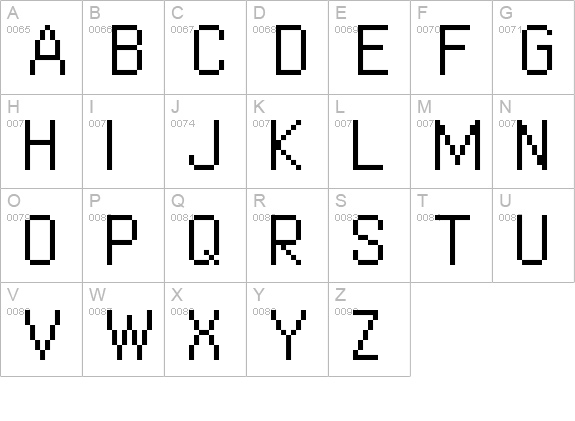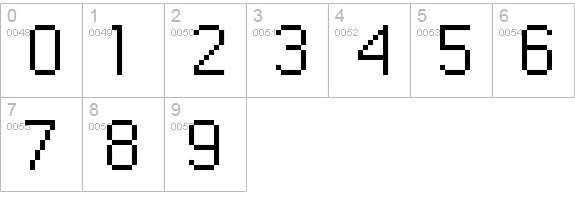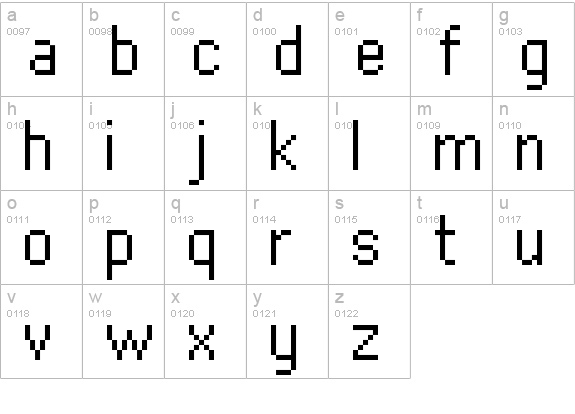
copy 10_56 Font Details
Discover the perfect blend of style and functionality with the elegant 10_56 font. This versatile typeface is ideal for a wide range of design projects, from branding to editorial design. With its clean lines and modern aesthetic, 10_56 font adds a touch of sophistication to any creative endeavor. Best of all, this premium font is available for free download at FontsMarket.com. Don't miss this opportunity to elevate your designs with the timeless elegance of the 10_56 font. Download it today and start creating stunning visuals that leave a lasting impression.